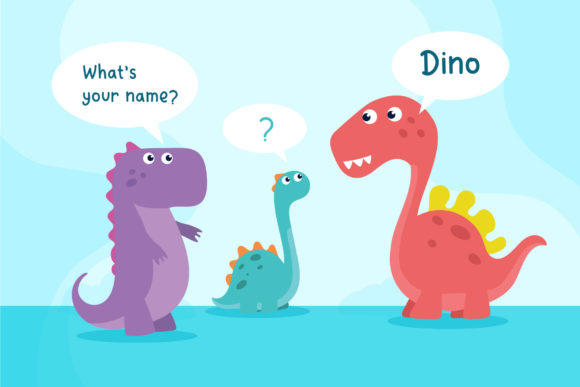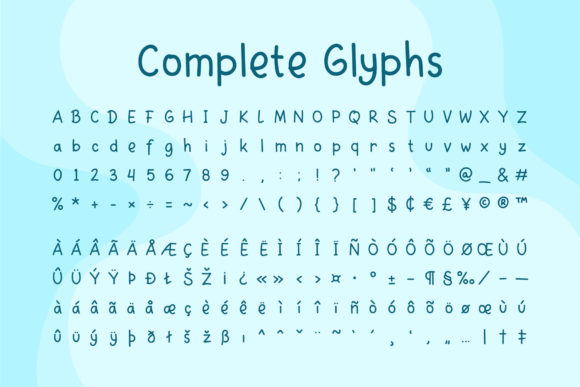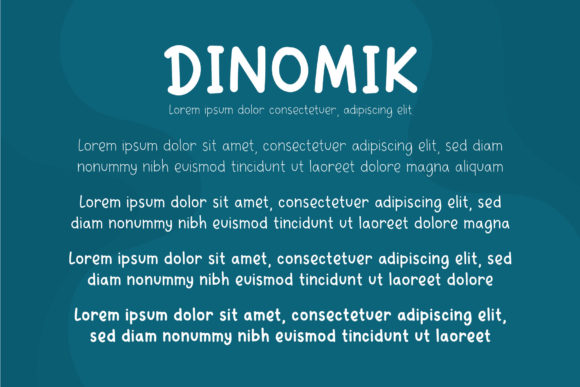
Unlocking Creativity with the Perfect Font: Dinomik Font
You know that moment when you’re working on a design project and you just can’t seem to find the right font to bring it all together? The one that makes your design pop and leaves a lasting impression on your audience? We’ve all been there, right? That’s why we’re excited to introduce you to Dinomik Font, a fun and cheerful sans serif font that’s sure to add a super cute touch to any creative design you have.
With four variations to choose from, Dinomik Font offers endless possibilities for designers looking to add a playful twist to their work. Whether you’re creating a brand identity, a marketing campaign, or a social media graphic, Dinomik Font is the perfect choice to make your design stand out from the crowd. And the best part? It’s incredibly versatile, making it a valuable addition to any designer’s toolkit.
- Unique Characteristics: Features a unique blend of modern and vintage elements, making it suitable for various design styles
Dinomik Font Review
Initially, I was excited to dive into the Dinomik Font, hoping it would offer something unique and captivating for my design projects. ✨ Upon closer inspection, I found some redeeming qualities that might make it a viable option for certain users.
- ✨ Distinctive Personality: Dinomik Font does have a distinct, quirky feel that could work well for projects requiring a bold statement.
- ✨ Versatility: This font is available in multiple weights, making it suitable for a range of applications, from headings to body text.
However, as I continued to explore the font, I encountered some limitations that left me with mixed feelings. ⚠️
- ⚠️ Lack of Legibility: The font’s unique design, although striking, can make it challenging to read, especially at smaller sizes or in large blocks of text.
- ⚠️ Limited Character Set: The font’s character set is somewhat limited, which could be a concern for users requiring support for multiple languages or special characters.
Overall, I would say that the Dinomik Font is a solid option for users looking for a bold, eye-catching font for specific projects. However, its limitations may make it less suitable for more general use or for users prioritizing readability and versatility.
Getting the Most Out of Dinomik Font
Use Dinomik Font to create eye-catching headlines, add a touch of sophistication to your designs, and create a cohesive brand identity. For best results, use Dinomik Font in conjunction with high-quality images and a clear design concept.
Dinomik Font is ideal for use in:
– Branding and logo design
– Marketing materials, such as brochures and flyers
– Digital design, such as website headers and social media graphics
– Editorial and publishing design, such as book covers and magazine layouts.
Alternatives to Dinomik Font for Designers
Merriweather is a classic serif font that is perfect for body text, especially in print materials. It is highly legible and works well in longer blocks of text. In comparison to Dinomik Font, Merriweather has a more traditional and elegant feel, while Dinomik Font has a modern and minimalist aesthetic.
Montserrat is a sans-serif font that is ideal for digital interfaces and modern designs. It has a clean and geometric look that makes it perfect for titles, headings, and short texts. Compared to Dinomik Font, Montserrat has a more industrial and urban feel, while Dinomik Font has a more minimalist and sleek design.